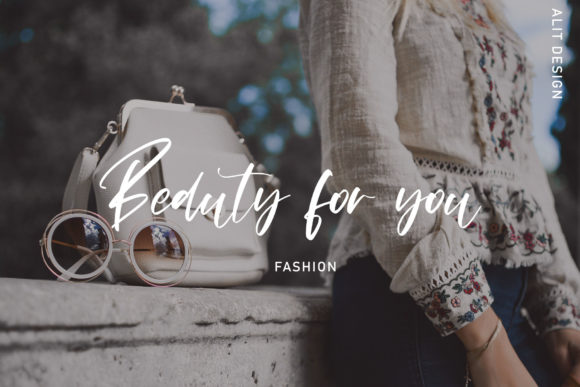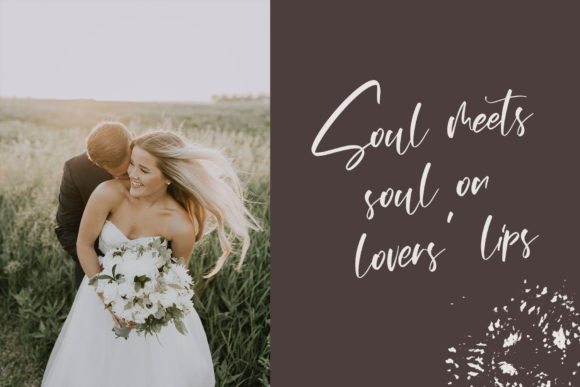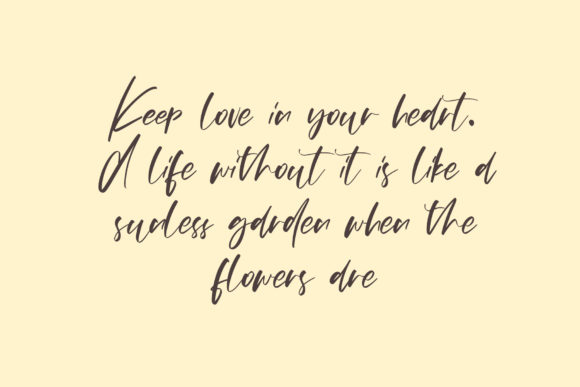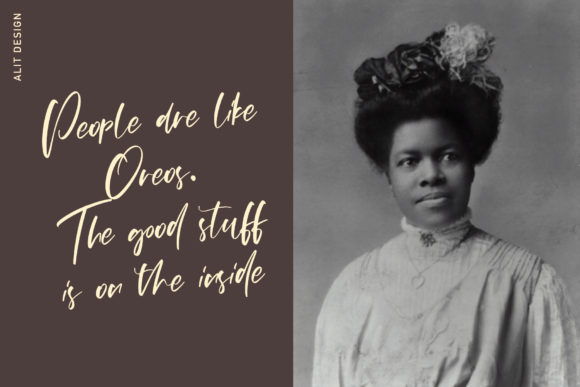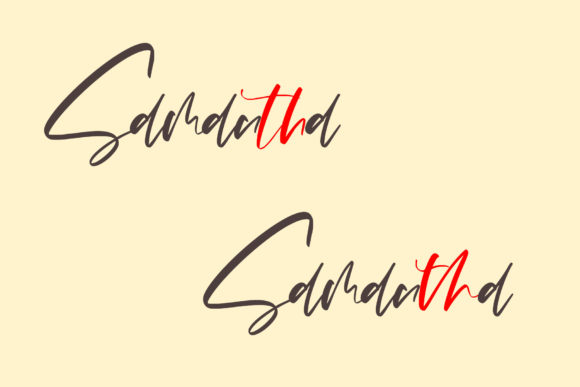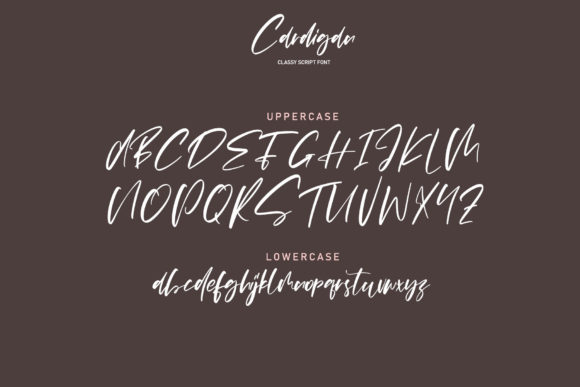
Wrap Yourself in the Warmth of Cardigan Font
There’s something magical about the moment when a design idea finally comes together – the rush of excitement, the sense of accomplishment, and the desire to share it with the world. For designers, these moments are what make all the hard work worth it. And what better way to bring your creative vision to life than with a font that exudes elegance and sophistication?
Enter Cardigan Font, a flowing handwritten font that adds a touch of warmth and personality to any project. Whether you’re creating a beautiful invitation, a stunning poster, or a heartfelt card, Cardigan Font is the perfect companion to help you express your unique style. Its timeless design makes it a valuable addition to any designer’s toolkit, and its versatility ensures that it will never go out of fashion.
Key Features of Cardigan Font
- Unique Characteristics: Cardigan Font features a unique blend of handwritten and modern elements, making it ideal for creating eye-catching headlines and titles.
- Font Style: The font includes multiple styles, including regular, bold, italic, and bold italic, allowing designers to add variety to their designs.
Cardigan Font Review
At first glance, the Cardigan font has a certain charm to it. The curves are smooth, and the letterforms are quite legible ✨. I can see why it might appeal to designers looking for a friendly, approachable feel. The font’s weight range is also decent, with enough options to create some nice contrast in typography.
However, I do have some concerns. The font’s overall design feels a bit generic, and it lacks a strong personality. In a market where unique, bold typography is trending, Cardigan feels like it’s playing it safe ⚠️. The x-height is also a bit too large, which can make text look cluttered in smaller sizes. Additionally, the font’s performance on different devices and screen resolutions leaves room for improvement ⚠️.
Ultimately, the Cardigan font feels like a solid, middle-of-the-road choice. While it’s not bad, it’s also not particularly memorable or impactful. If you’re looking for a font that’s easy to read and won’t offend anyone, Cardigan might be a good option. But if you want a font that’s going to make a statement, you might want to keep looking.
- Works well in large font sizes and display headings
- Good legibility and clarity
- Decent weight range for creating contrast
- Lacks a strong personality or unique character
- Generic design that fails to stand out
Cardigan Font is ideal for creating warm and inviting designs, such as branding materials, social media graphics, and advertising materials. It’s also suitable for creating a vintage or retro aesthetic in designs like posters, flyers, and business cards.